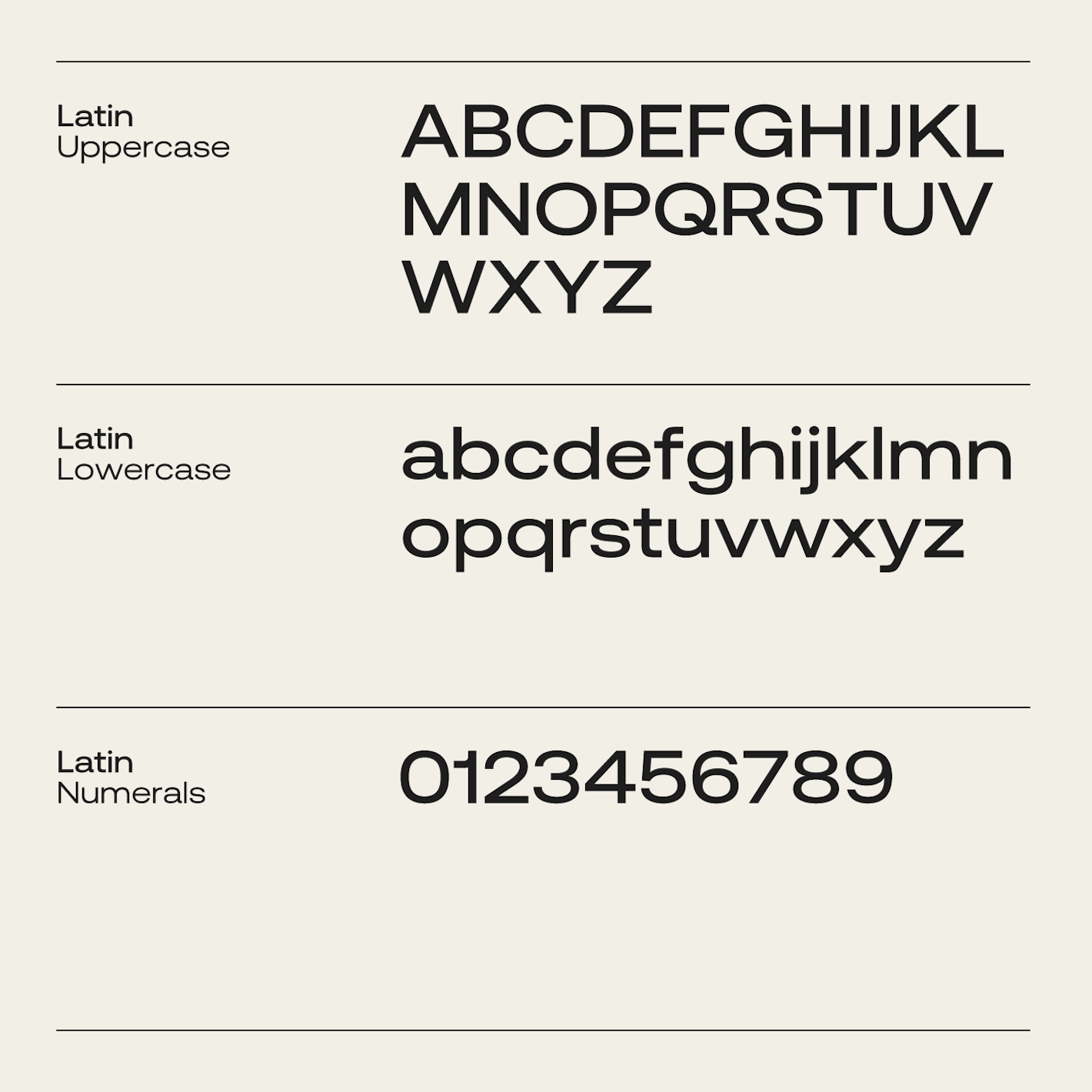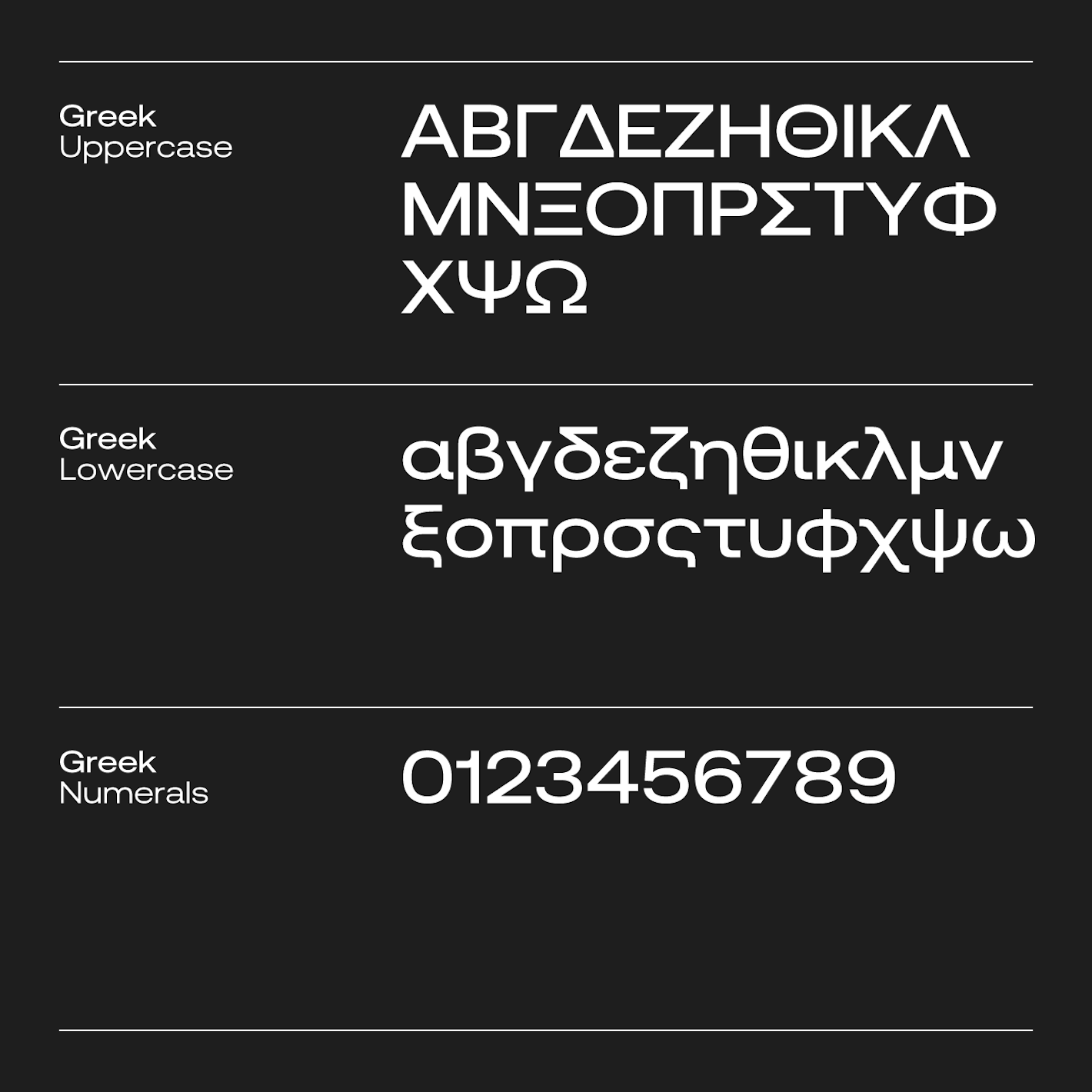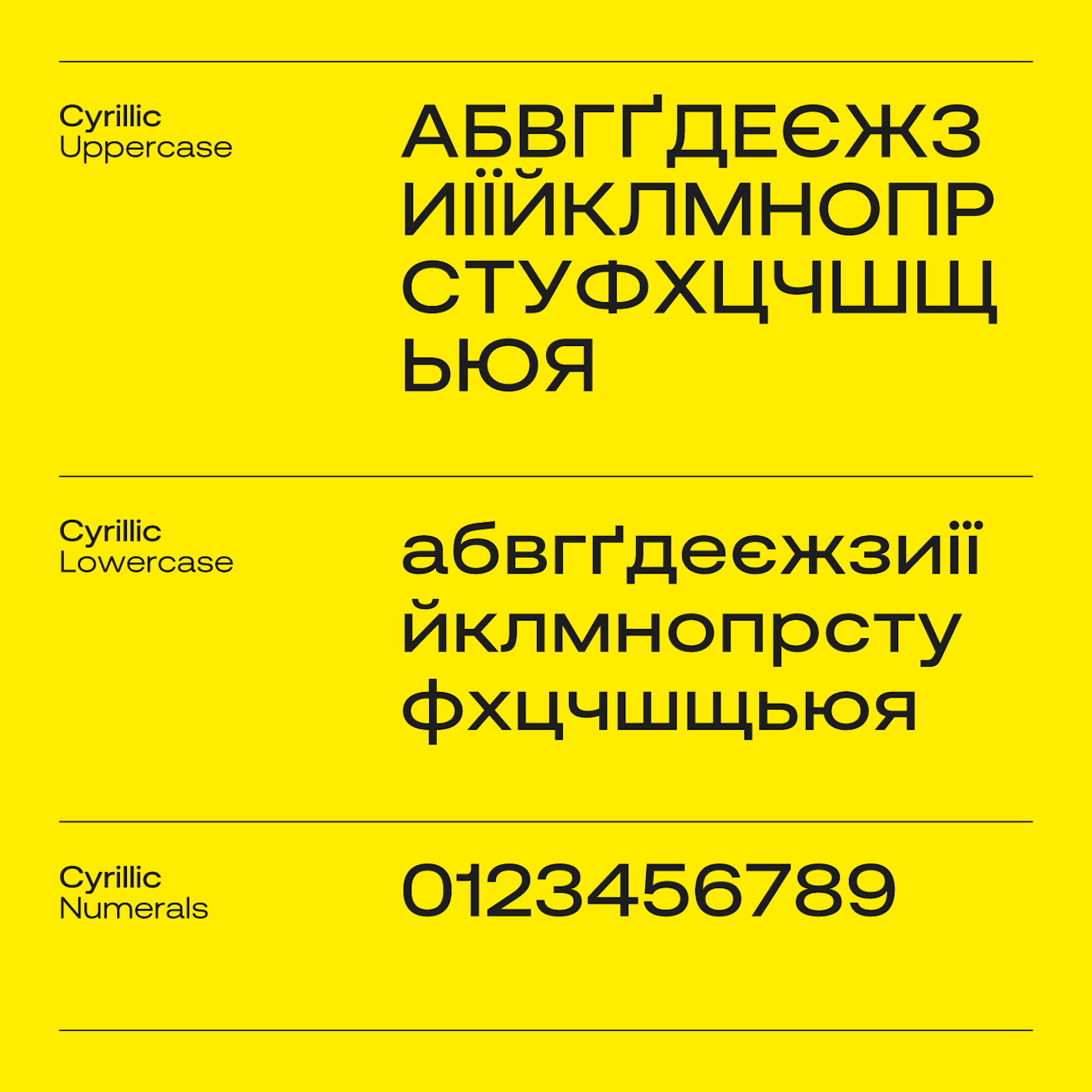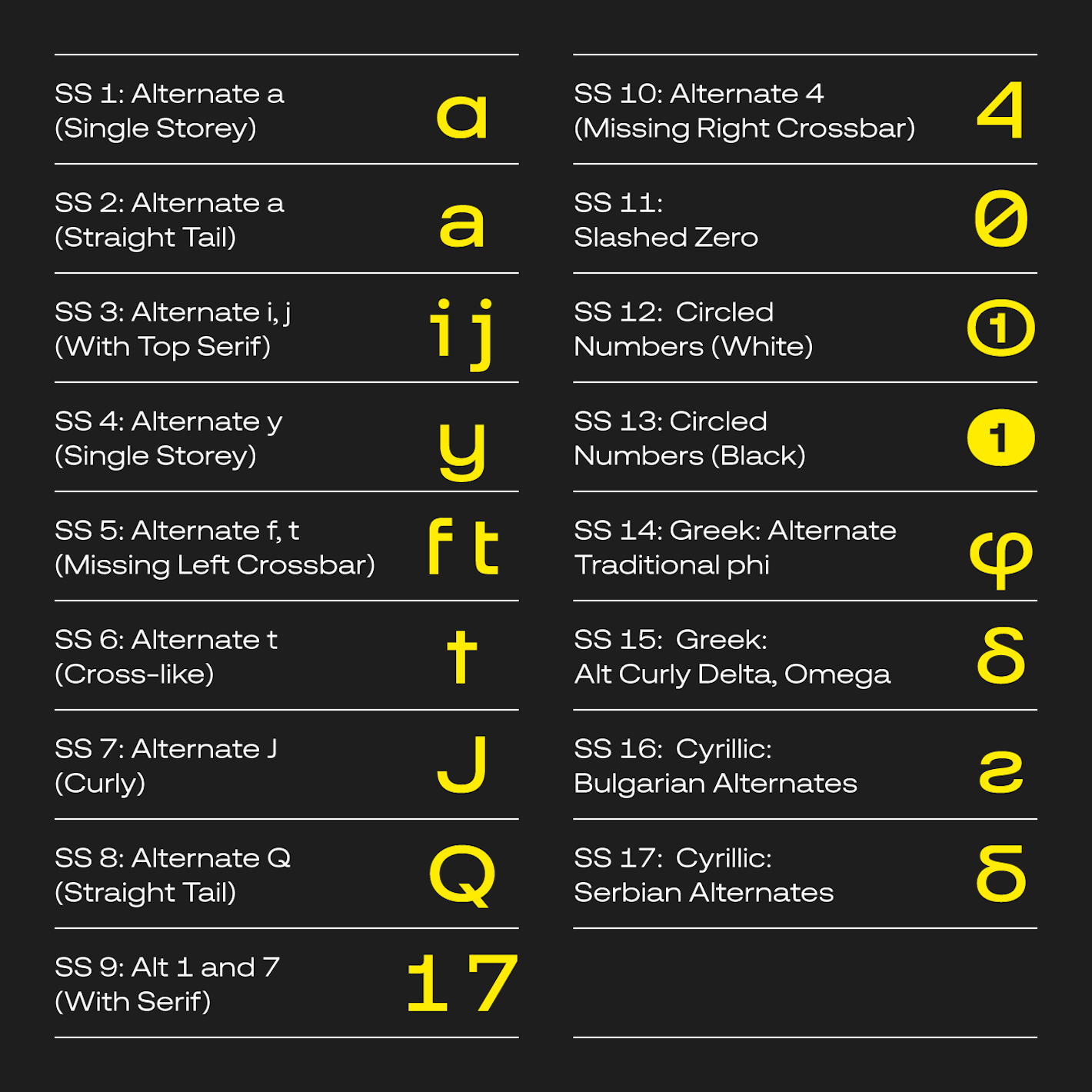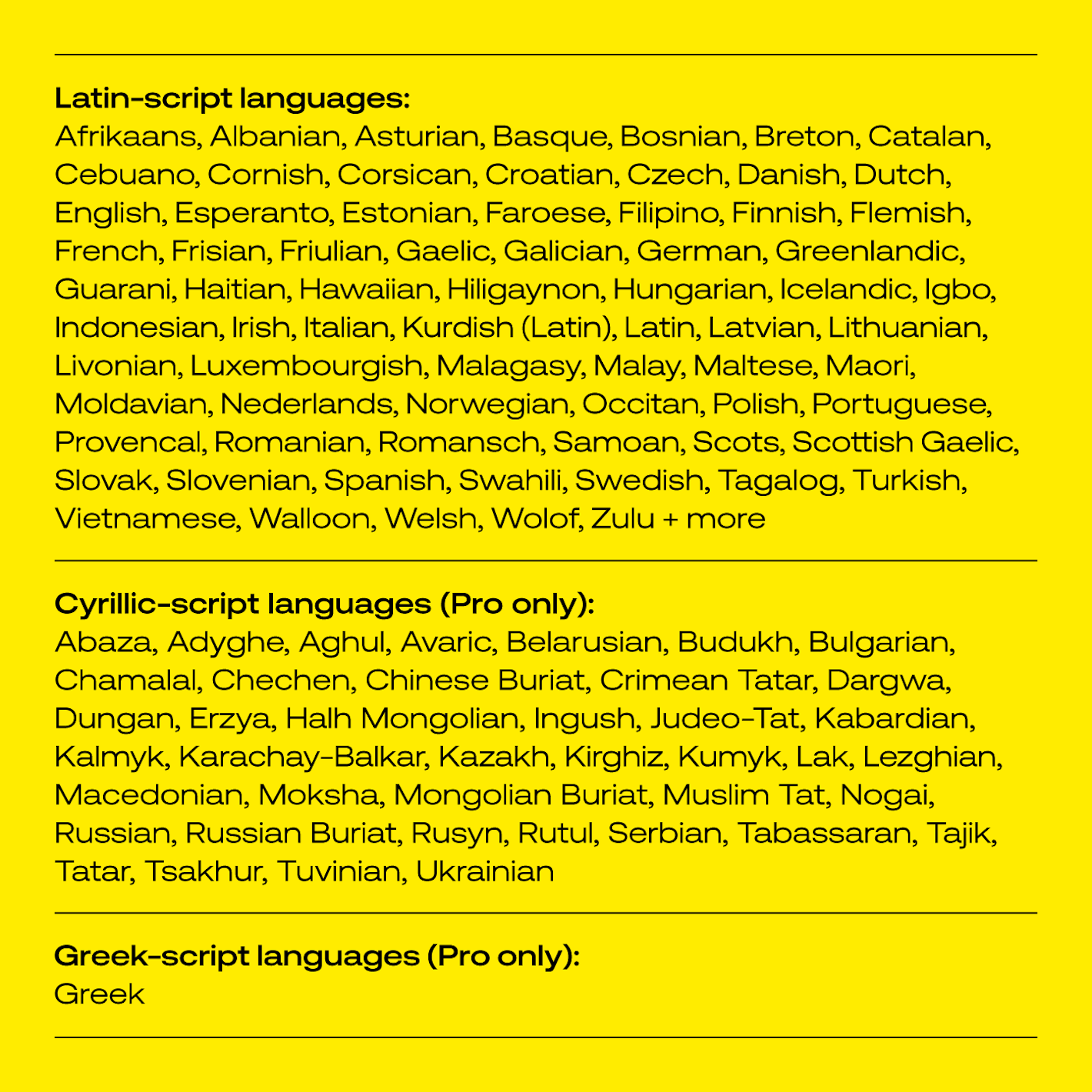
Aeonik Extended takes the iconic design of Aeonik and stretches it into a wider form, creating a sense of openness and boldness while maintaining the family’s hallmark mechanical precision and timeless appeal. Its extended proportions make it ideal for impactful headlines, bold branding, or designs that demand a strong presence.
Available in eight weights, from Thin to Black, with matching italics, Aeonik Extended offers the flexibility to tackle any design challenge. For even greater control, variable font technology enables precise fine-tuning of weight. It supports an extensive range of languages, including most European languages written in the Latin script, as well as Vietnamese, multiple Cyrillic-based languages, and Greek. Language support options can be selected at checkout.
Aeonik Extended shares the same robust set of OpenType features as Aeonik, including discretionary ligatures, old-style and tabular numerals, fractions, case-sensitive punctuation, symbols, geometric shapes, circled numerals, and arrows. Its stylistic sets across Latin, Greek, and Cyrillic offer alternate designs for characters such as ‘a,’ ‘t,’ and ‘j,’ providing designers with maximum adaptability.
With its expansive form, Aeonik Extended offers designers a way to make a statement while seamlessly integrating with other members of the Aeonik family. Whether paired with the classical Aeonik, Aeonik Mono, or Aeonik Fono, its proportions bring a bold contrast to complex or creative typographic hierarchies.